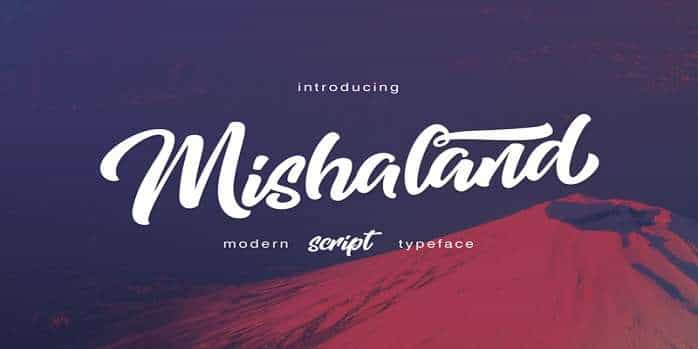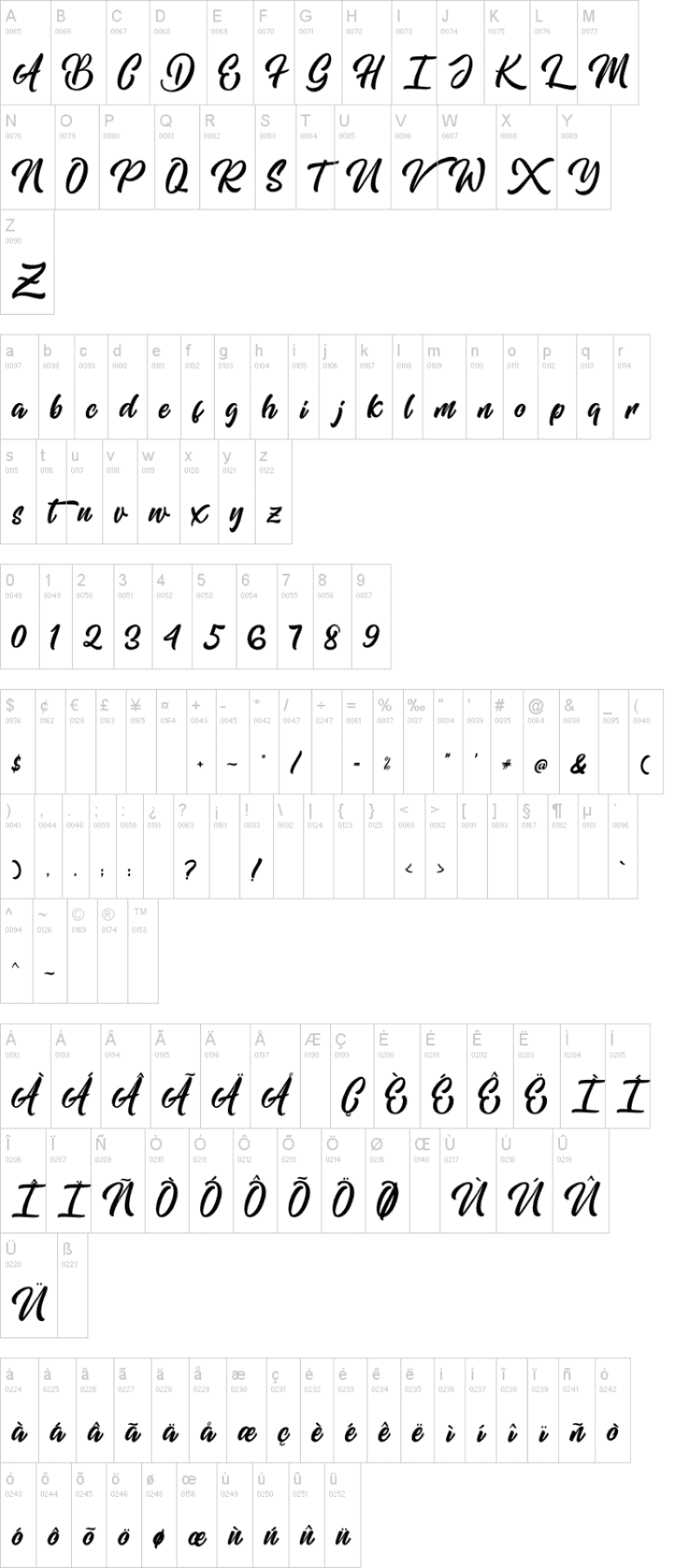
Mishaland is a stylish Brush font with a high level of detailing and it belongs to the category of fonts designed by Thirtypath where the font is free for download and personal use. The free version has all the letters, both capital and small, and a few other extra characters as well.